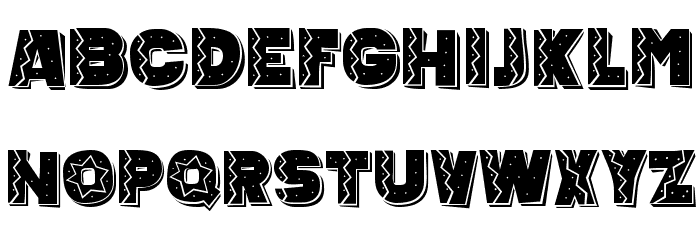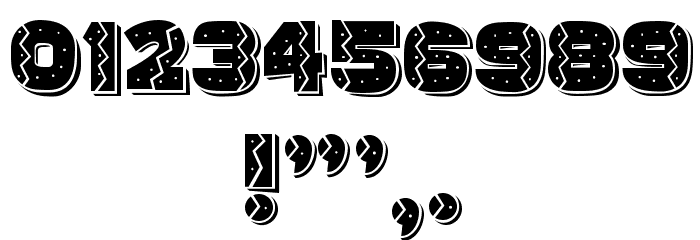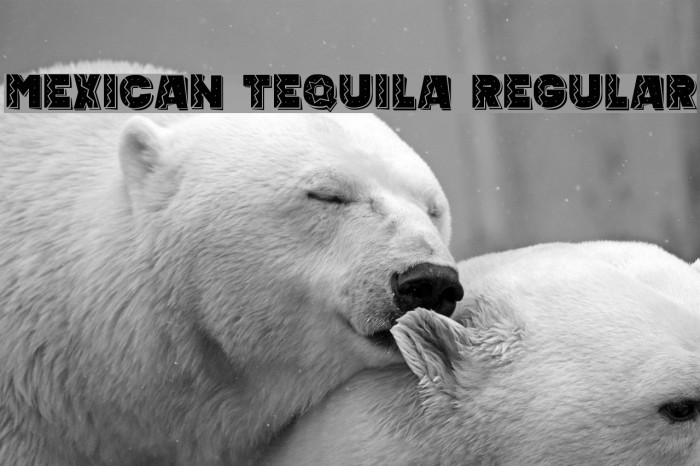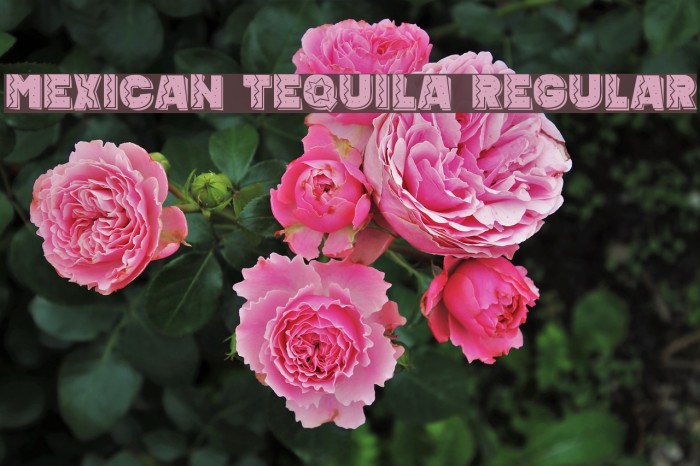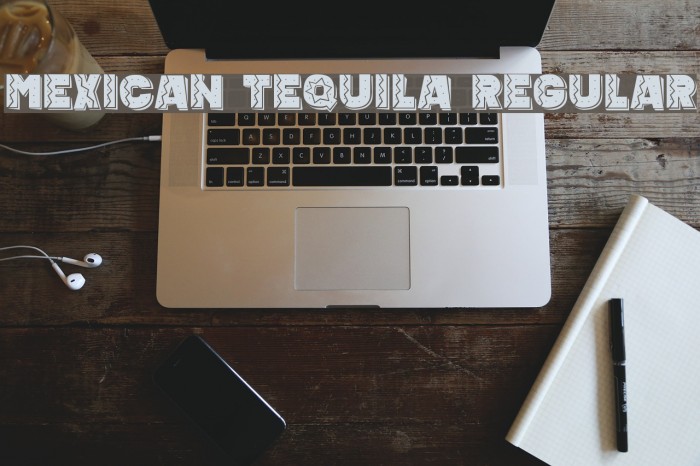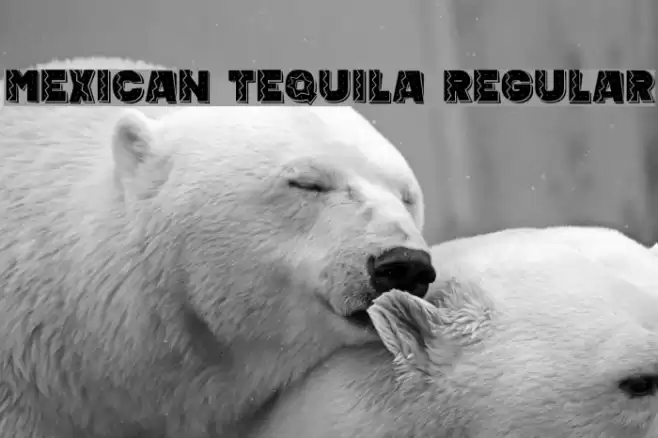
Mexican Tequila Regular Font
This font features a bold and decorative style with a distinctively festive and playful appearance. Each character is adorned with intricate patterns and cut-out shapes, reminiscent of traditional Mexican art and design. The uppercase letters are robust and eye-catching, making them ideal for creating impactful headlines or titles. The numbers and special characters maintain the same decorative theme, ensuring consistency across all text elements. The font's unique style captures a sense of celebration and cultural richness, making it suitable for projects that aim to convey a lively and vibrant atmosphere.
A bold, decorative font with intricate patterns, inspired by traditional Mexican design.
- Proposed Projects: Ideal for festive event posters, cultural festival branding, themed restaurant menus, and creative packaging designs.